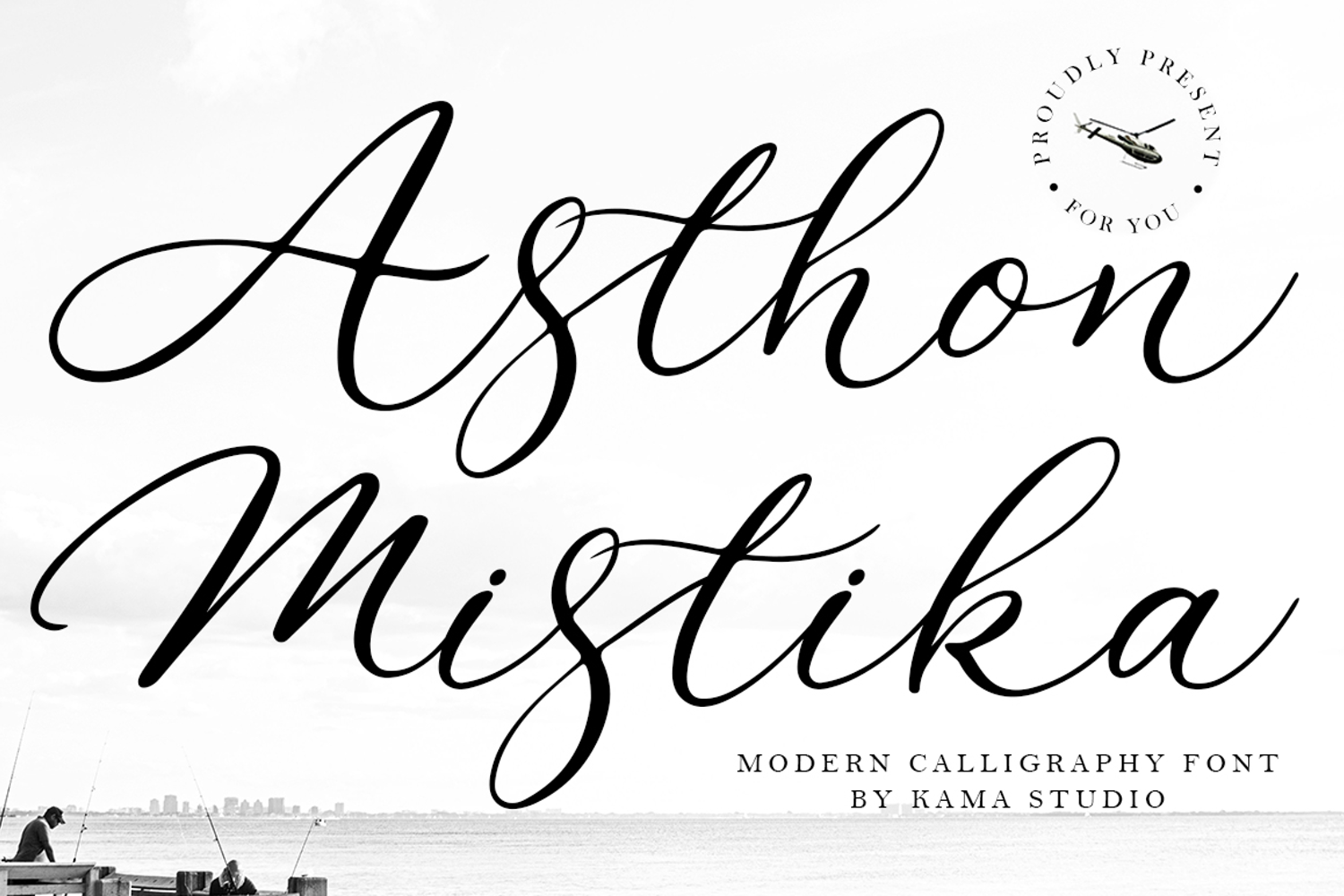
Featuring dramatic swashes and a high-contrast ink flow, this font is for those who want their designs to feel alive and organic. It breaks away from traditional formal scripts, offering a more contemporary and artistic approach to calligraphy. It is exceptionally well-suited for signature-style logos, expressive social media graphics, and striking event announcements. With Asthon Mistika, your typography becomes a centerpiece of energy and flair